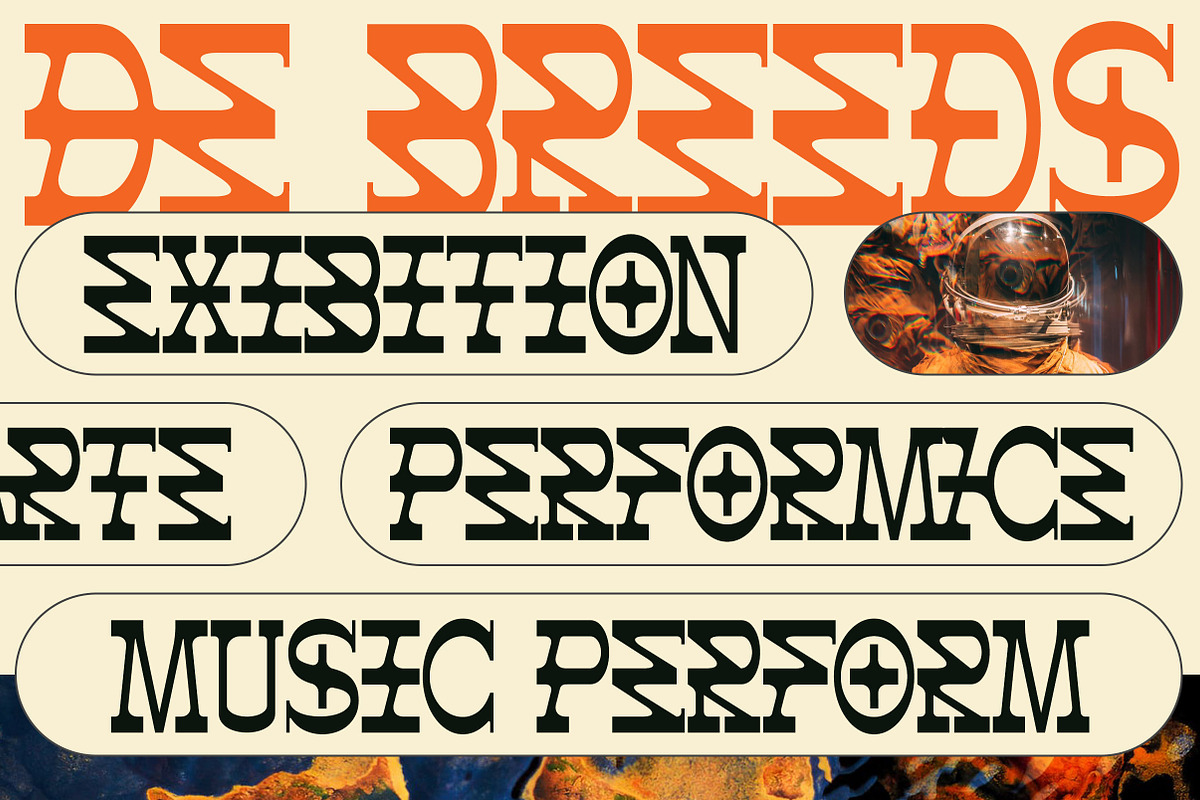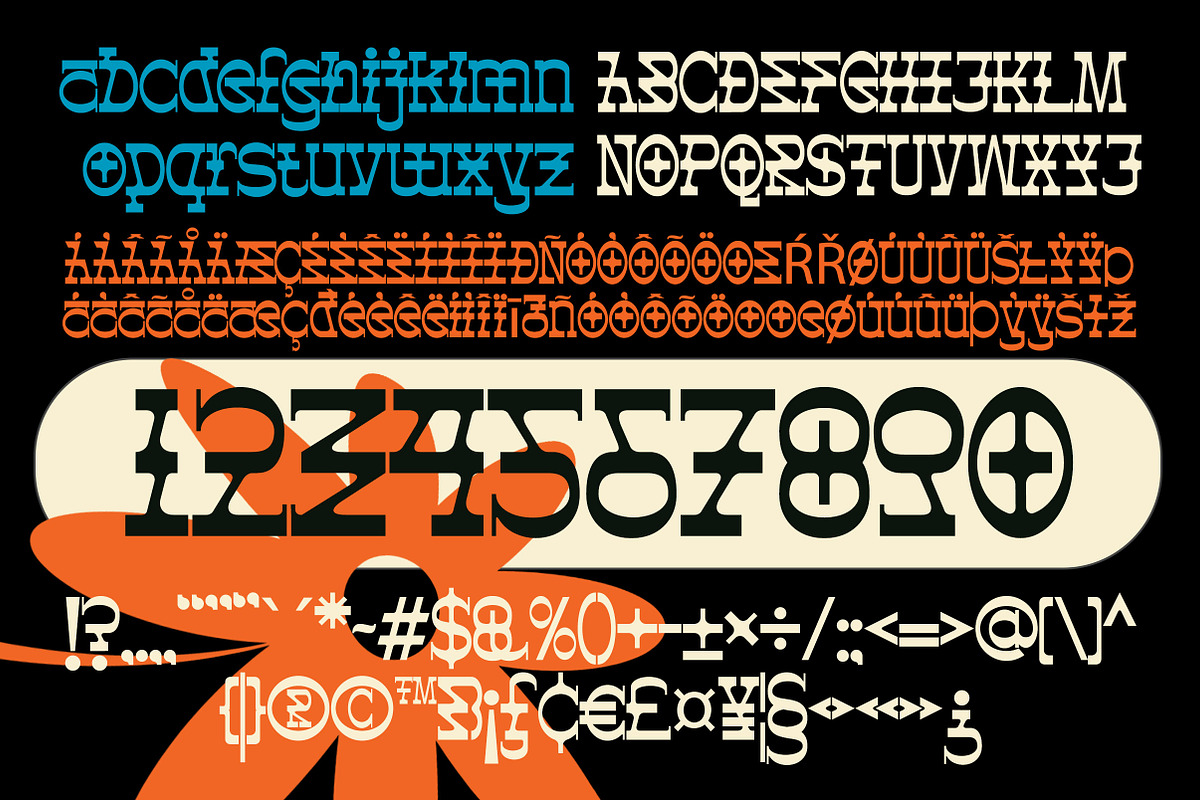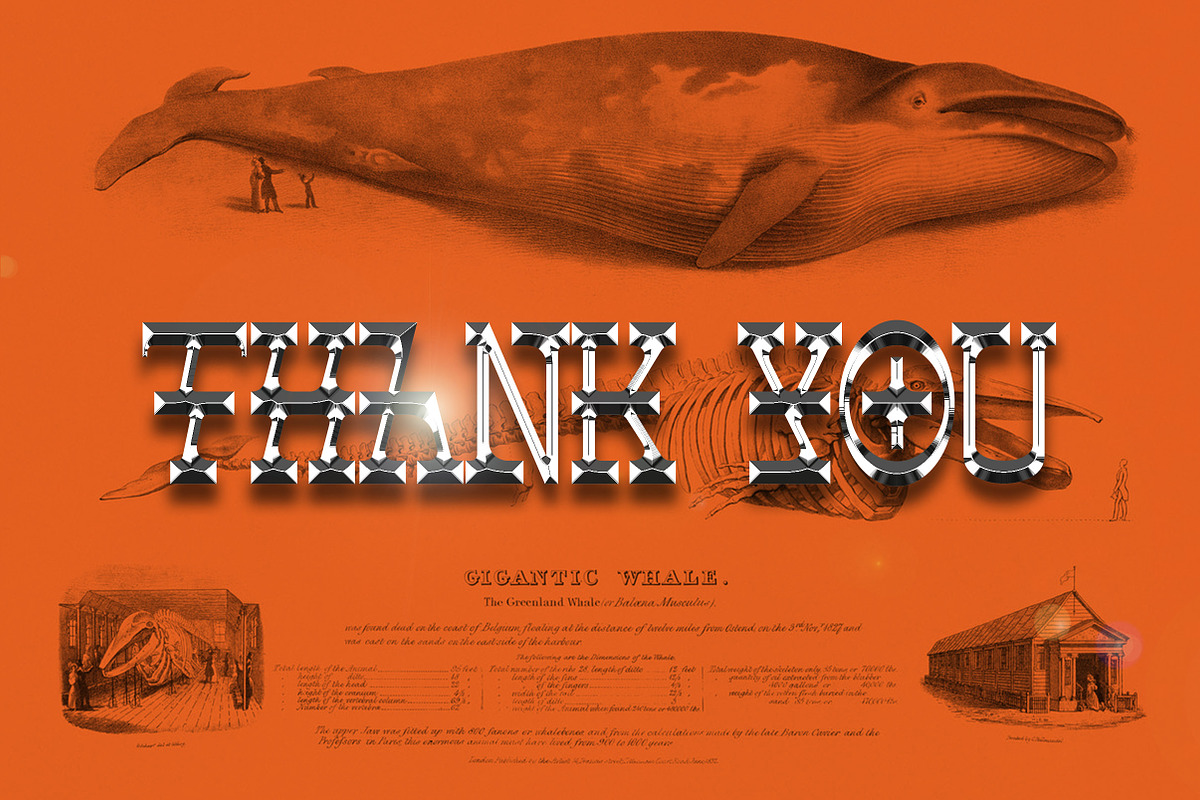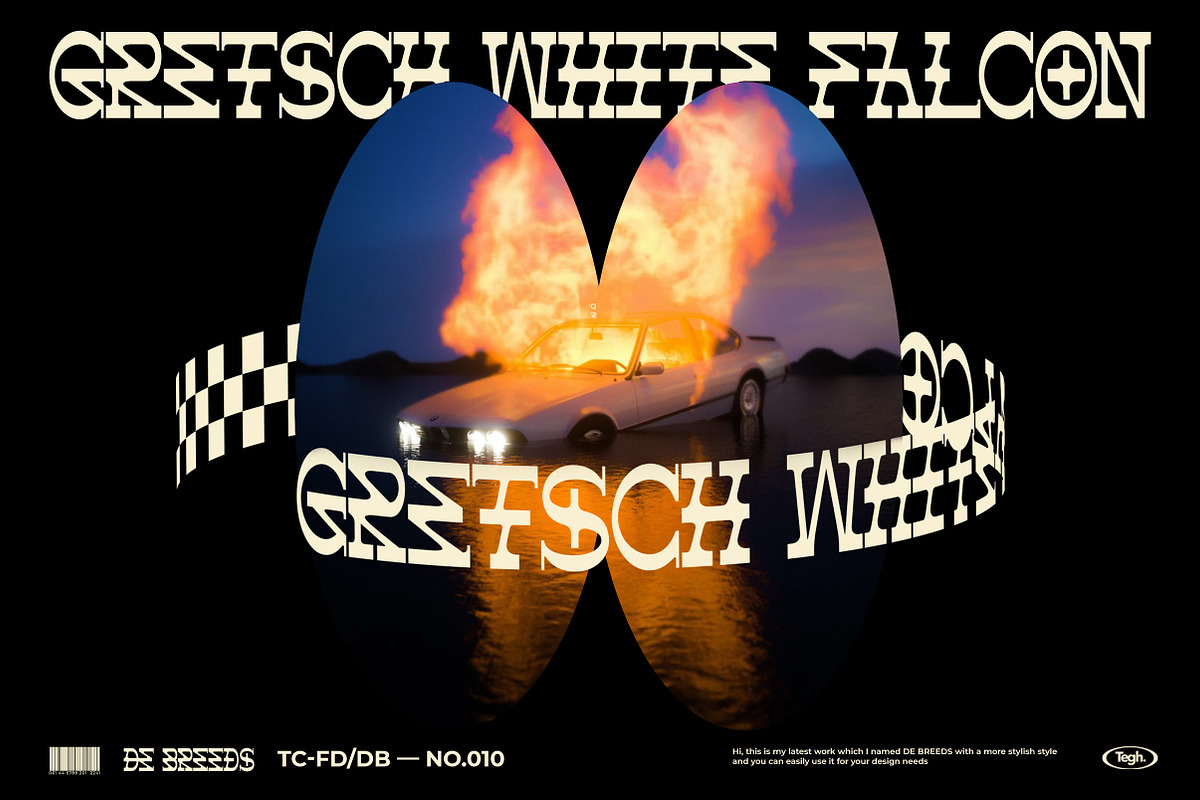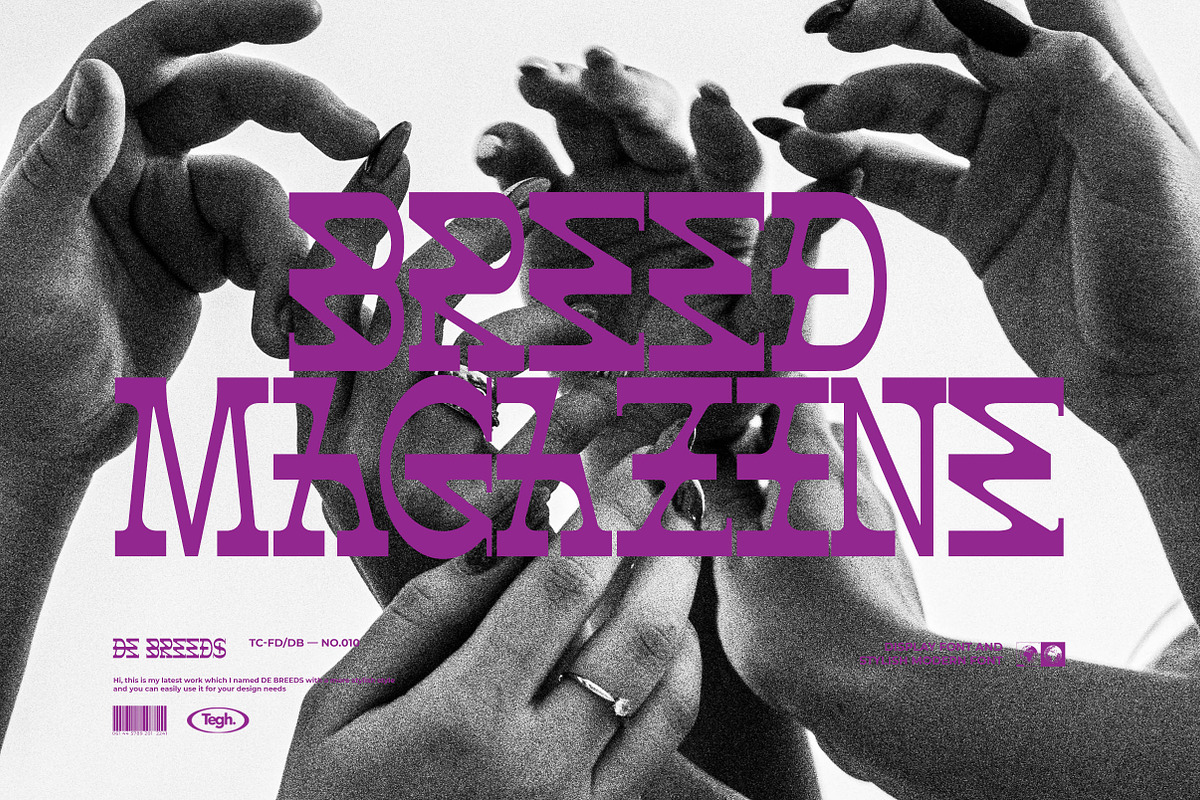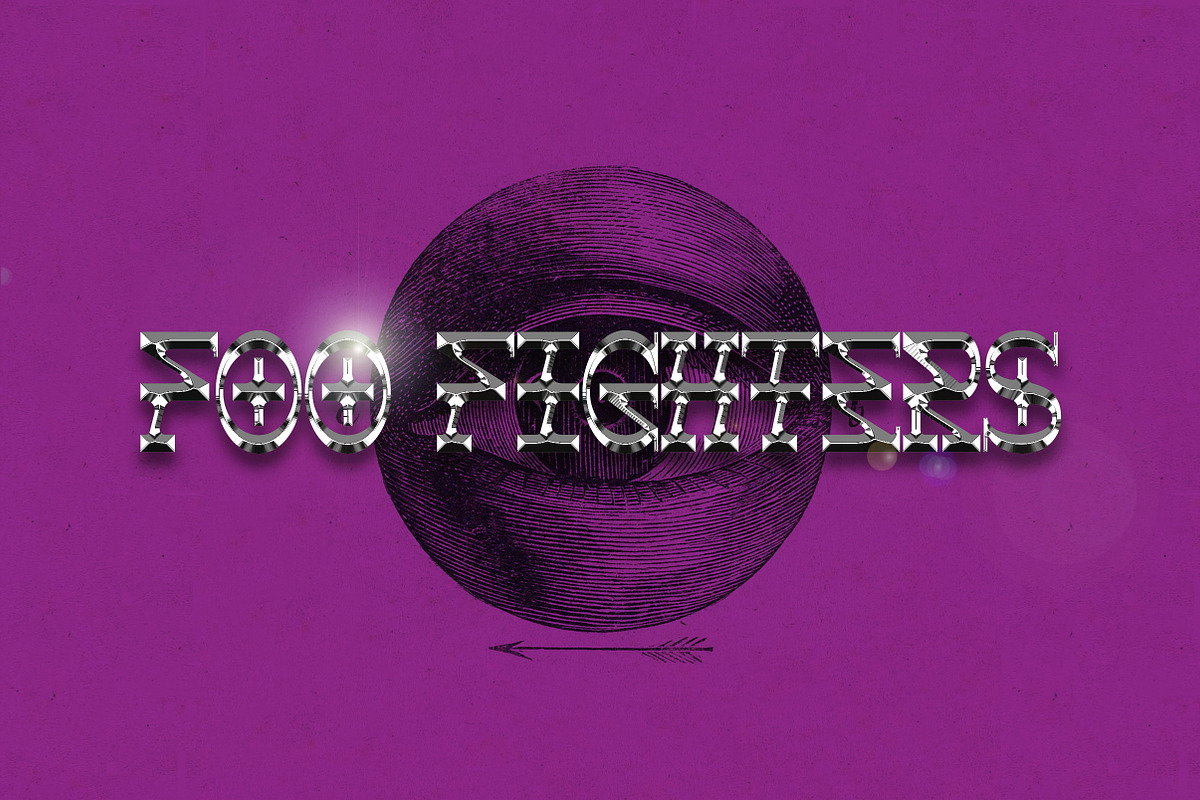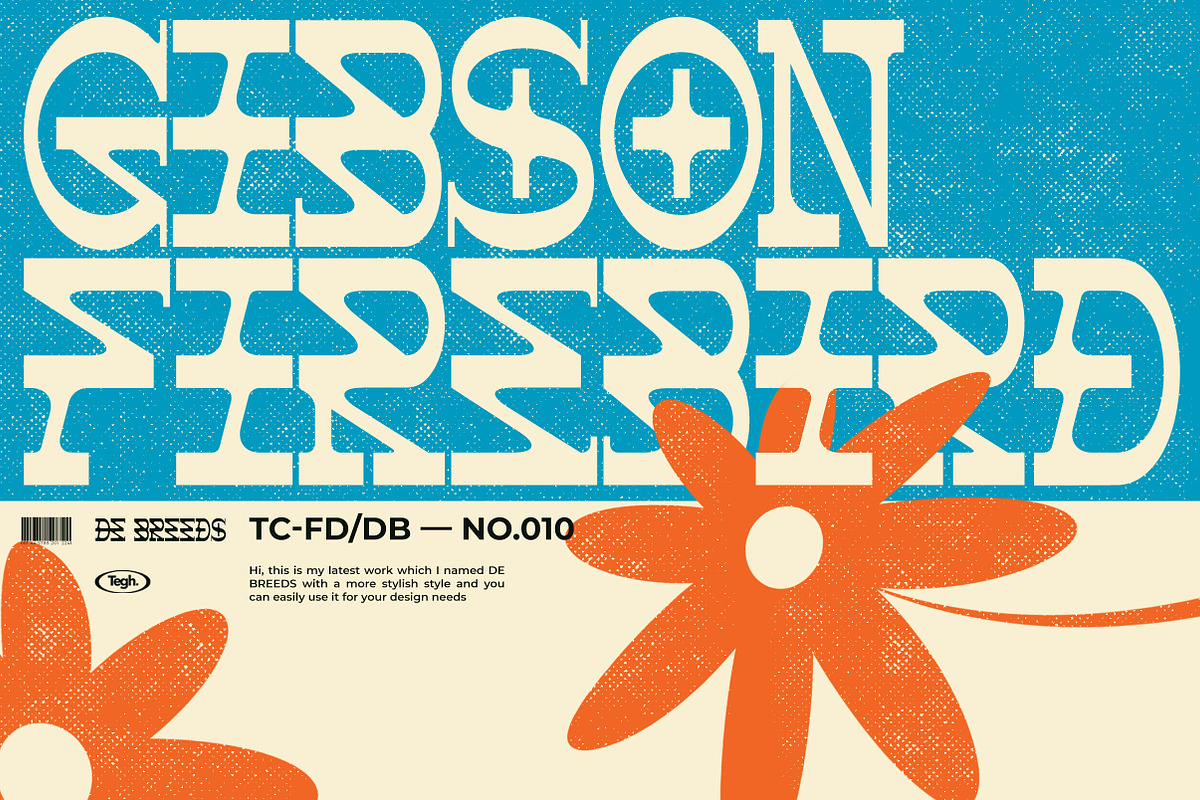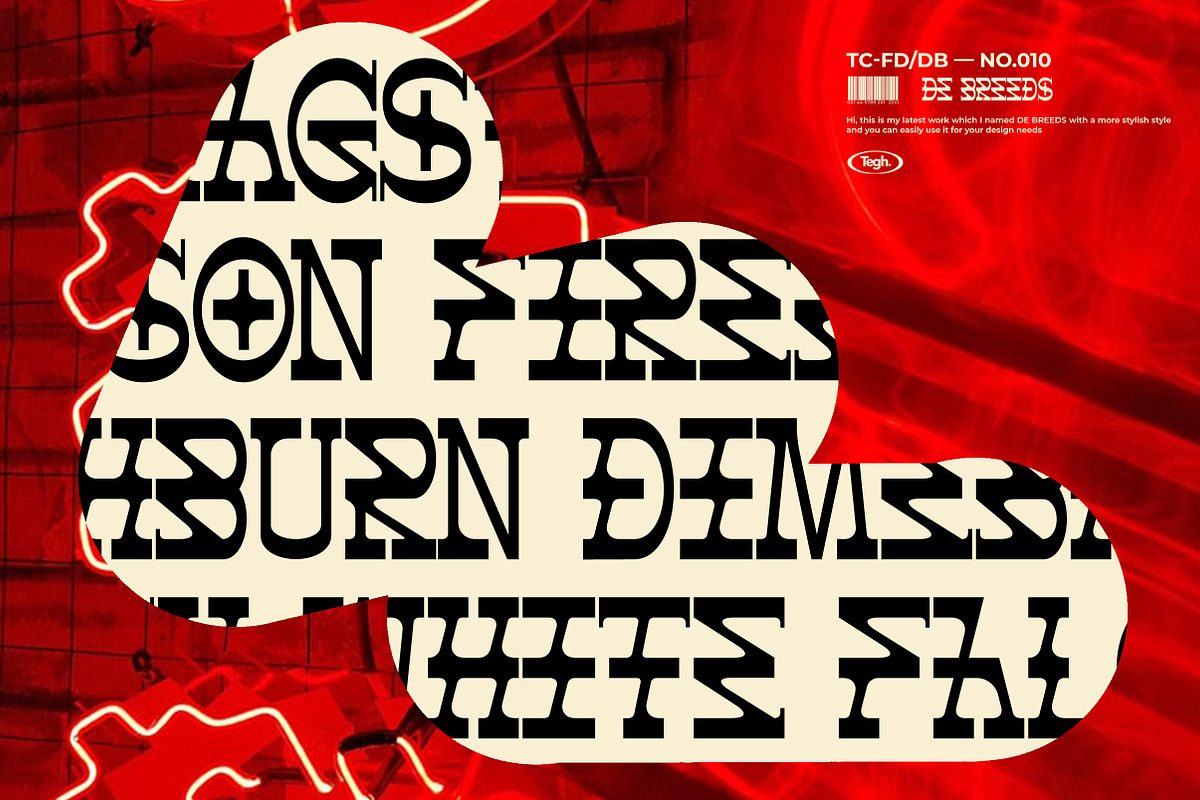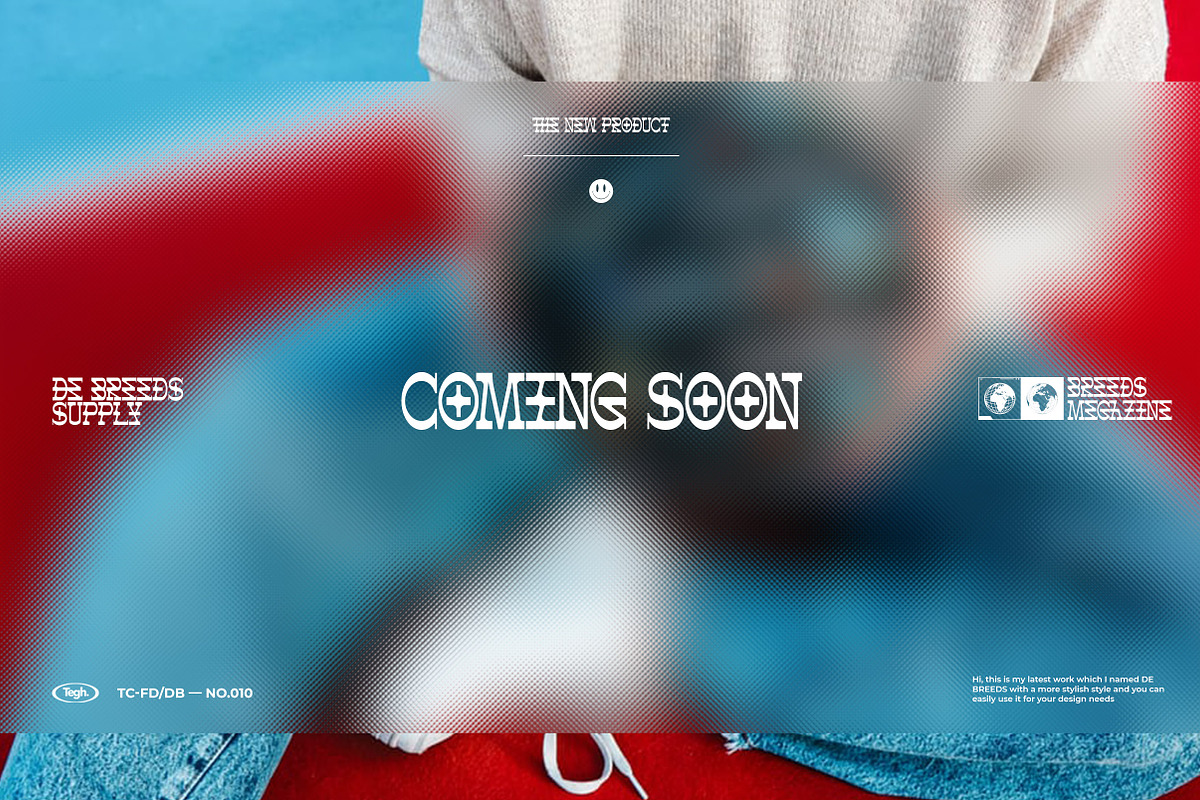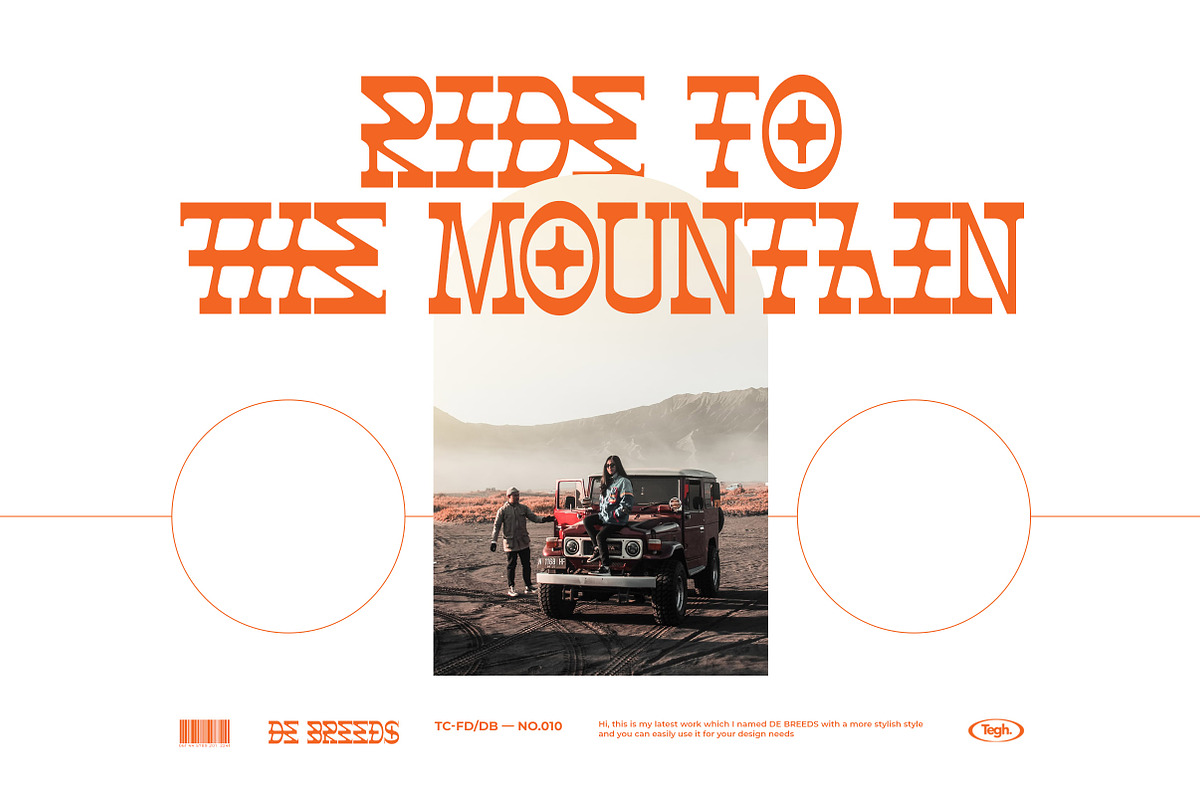
DE BREEDS
Hi creatives, I'm back with my latest work which I named DE BREEDS, which is a unique stylish font for you to collect as a visual addition to your designs, this time font will make it easier for you to create designs such as posters, stickers and others. hope you like it